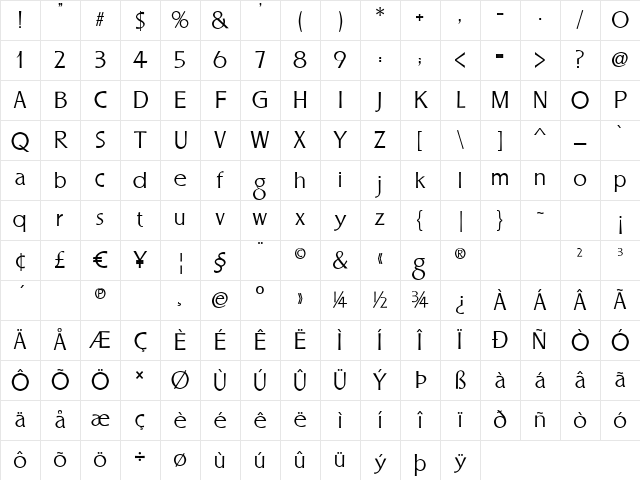
LHF Stevens Percepta BETA Regular
Design Context for LHF Stevens Percepta BETA
LHF Stevens Percepta BETA is a composed and adaptable typeface that performs quietly and consistently across a wide range of design contexts.
Pro Tip: Use LHF Stevens Percepta BETA in both headline and body roles to test its range before committing to a single application.